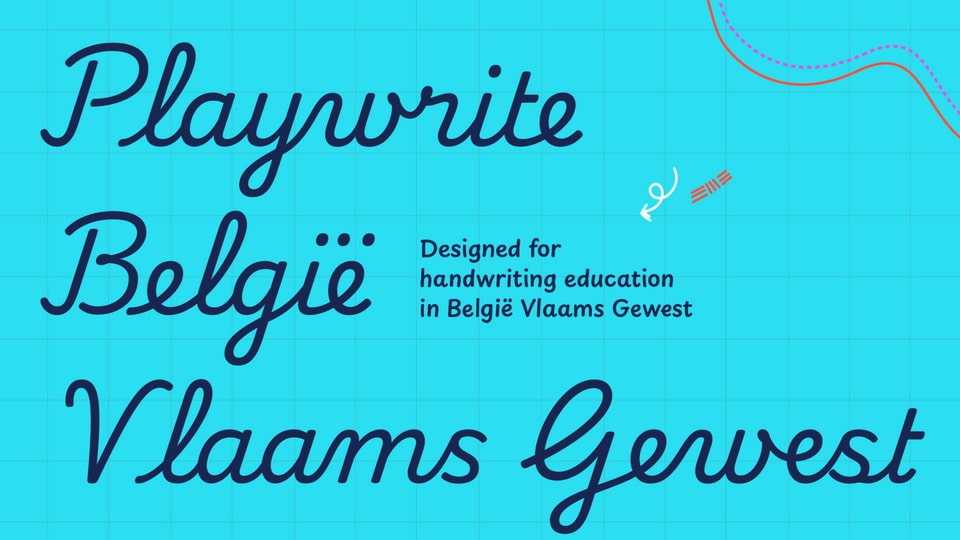
Playwrite België font, a typeface that allows the creation of primary school cursive fonts. Traditions of handwriting education exemplify this circumstance, and reflect the country’s historical ties to France and the Netherlands.